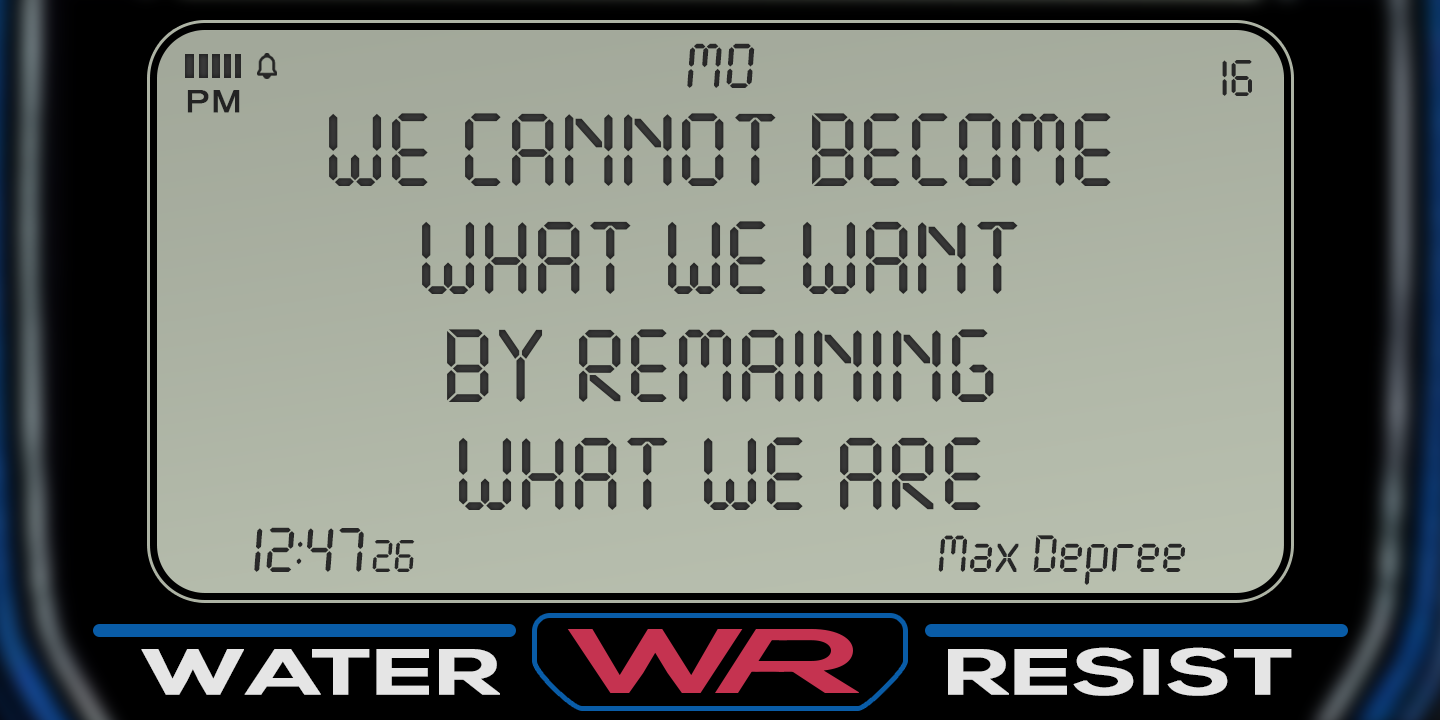
Digital Clock Font is perfect for technology-inspired design applications including electronic displays, digital interfaces, sci-fi graphics, gaming designs, tech product branding, electronic music visuals, retro computing themes, and futuristic marketing materials. This distinctive typeface brings authentic digital aesthetics and nostalgic electronic appeal to contemporary projects.
What makes Digital Clock Font exciting is its faithful recreation of classic LCD and LED display characteristics that instantly evoke the digital revolution era. The font features segmented letterforms with precise geometric construction that mirrors actual electronic displays, creating immediate recognition and nostalgic connection. Its technological aesthetic communicates innovation, precision, and digital sophistication.
The Digital Clock Font family includes various digital display styles such as Regular, Bold, Outline, and Glow effects that simulate different electronic display technologies. These specialized options provide comprehensive solutions for creating authentic digital-themed designs that capture the essence of electronic instrumentation and display systems.
This specialized display typeface represents the intersection of retro technology and contemporary design aesthetics. Tech companies and electronic brands choose Digital Clock Font Free Download for its authentic representation of digital display heritage. The font's electronic character makes it ideal for gaming interfaces, tech product packaging, and brands that want to communicate technological expertise. Its distinctive segmented design ensures immediate recognition while maintaining the authentic digital aesthetic that defines exceptional technology-inspired design work.